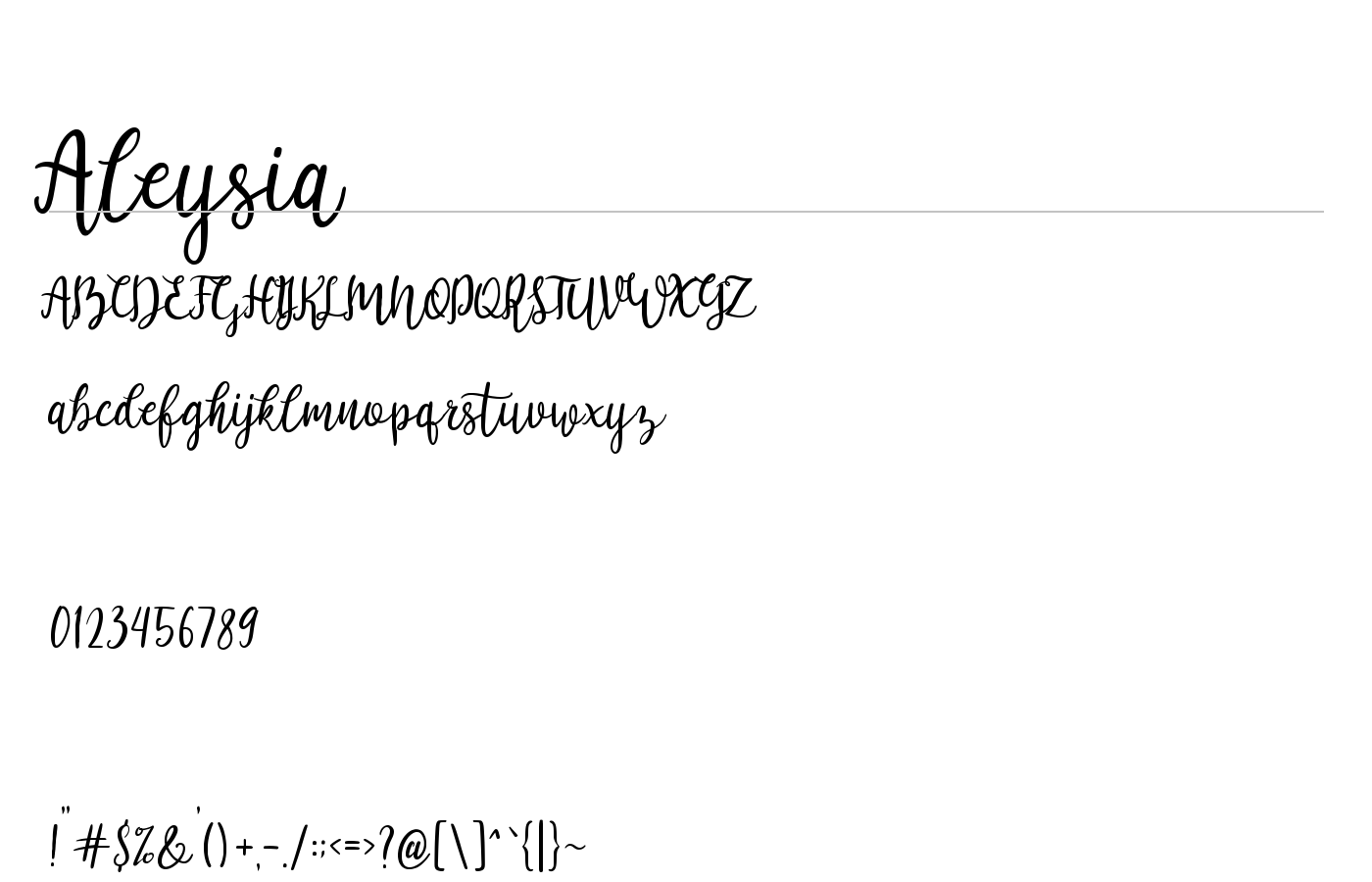
Aleysia is a delicate, handwritten script font with a charming and elegant personality. Its thin, flowing strokes and playful letterforms create a warm, inviting feel, making it ideal for personal branding, invitations, and feminine designs. This font works best in headlines or decorative uses where a stylish, handcrafted touch is desired.
Aleysia Font
About Aleysia Font
| Font family | Aleysia Font |
| Languages supported | Latin, Symbols, Greek, Thai |
| Designer | Ghazi Humam Fauzan |